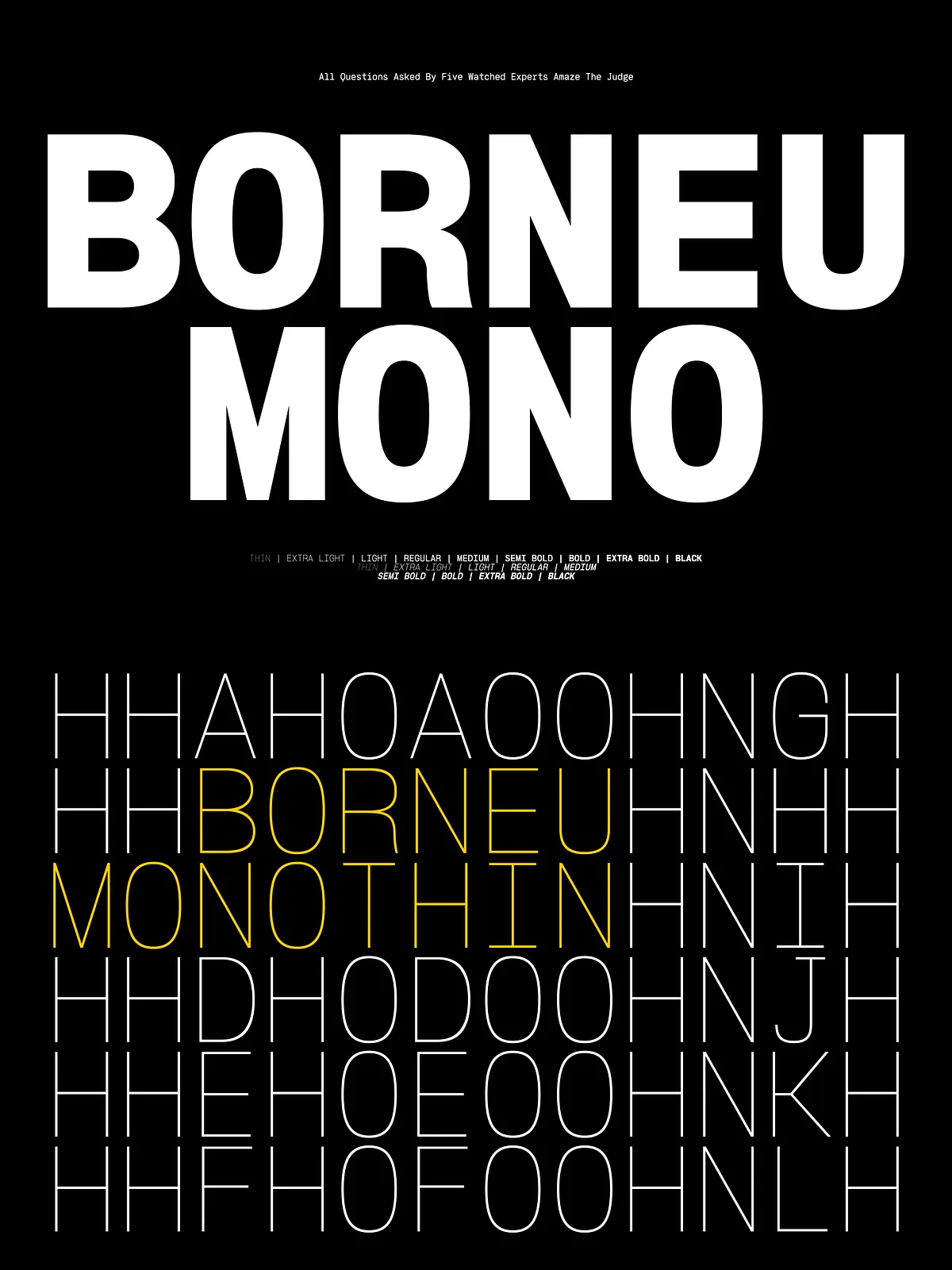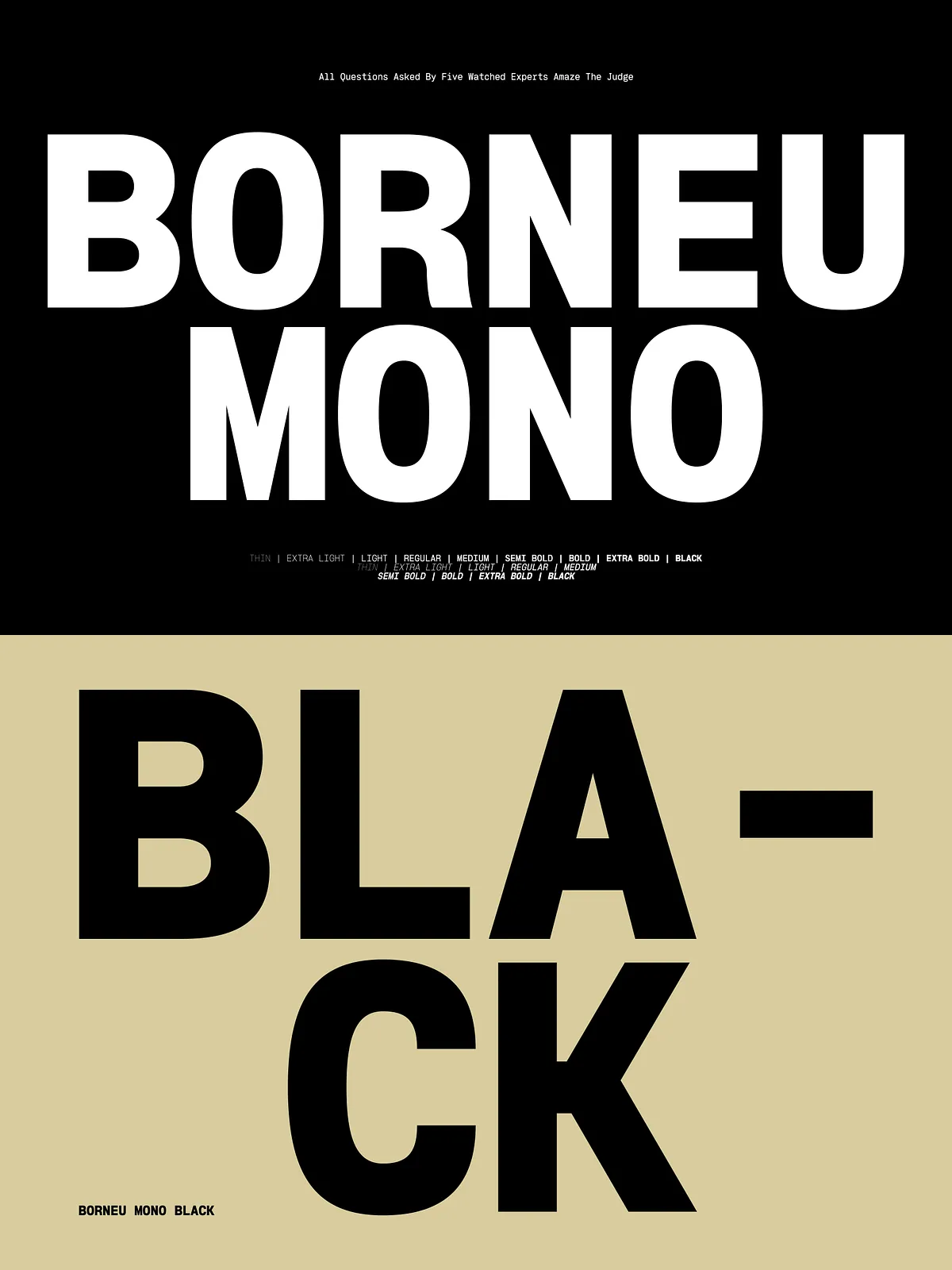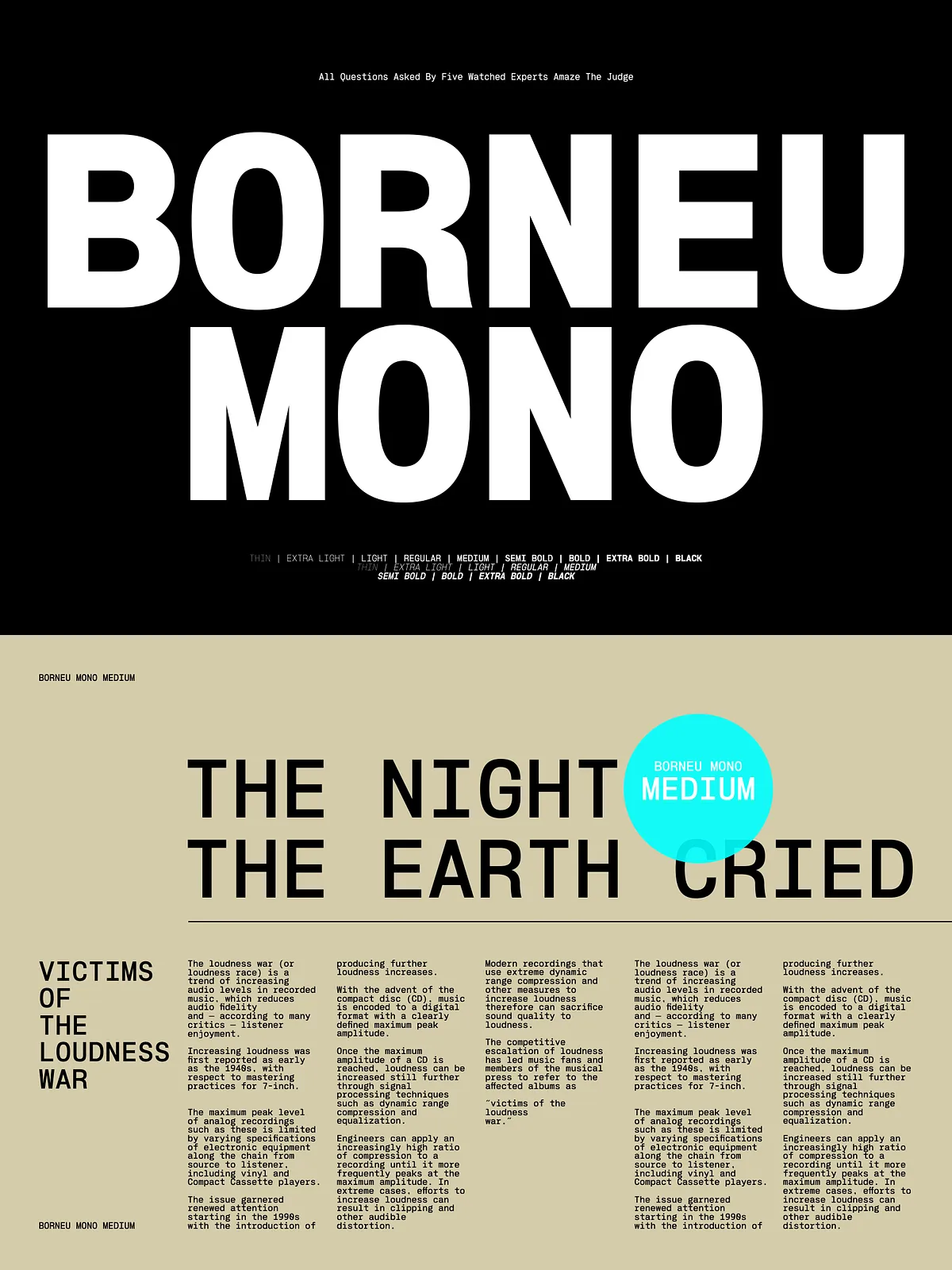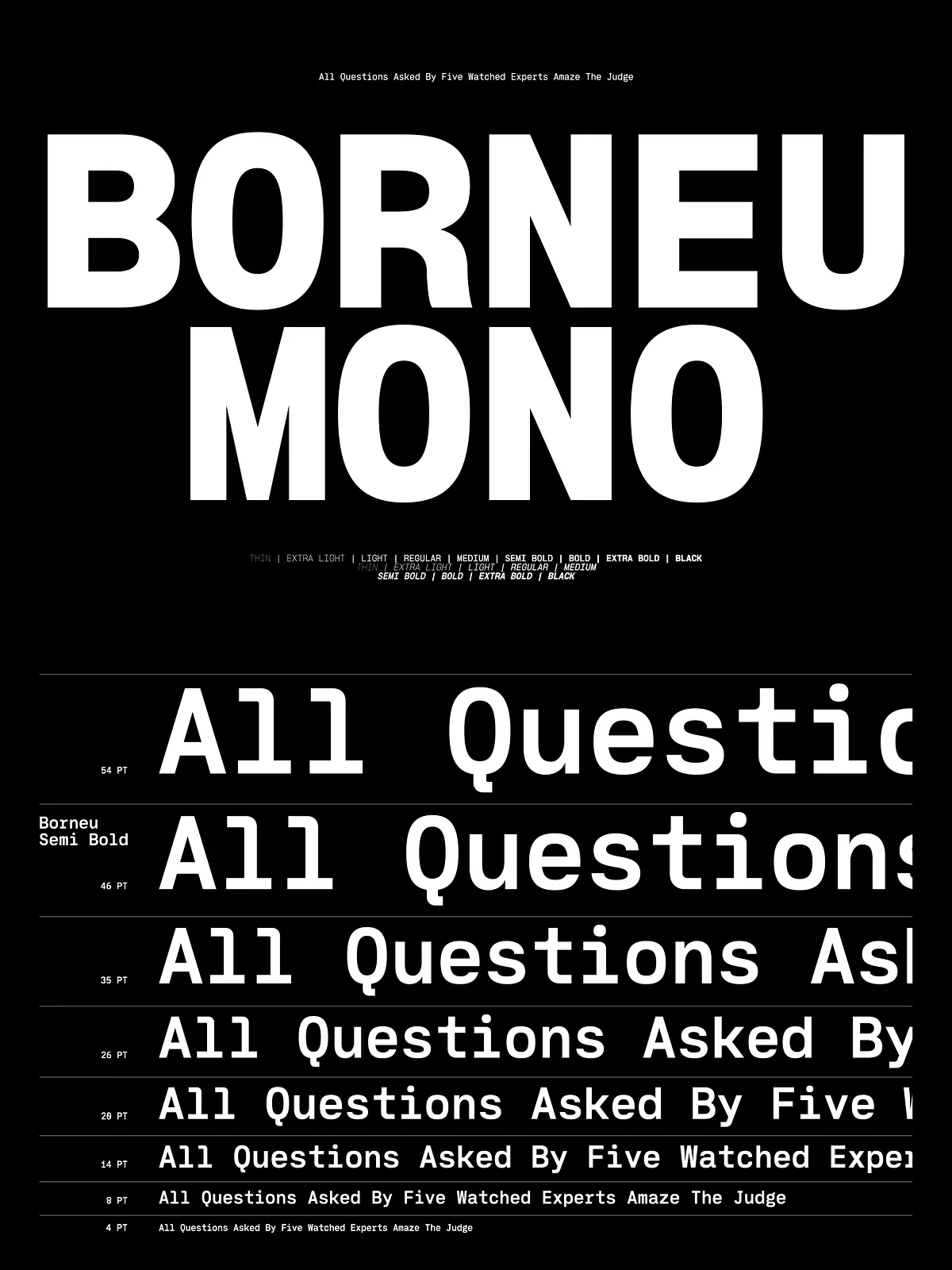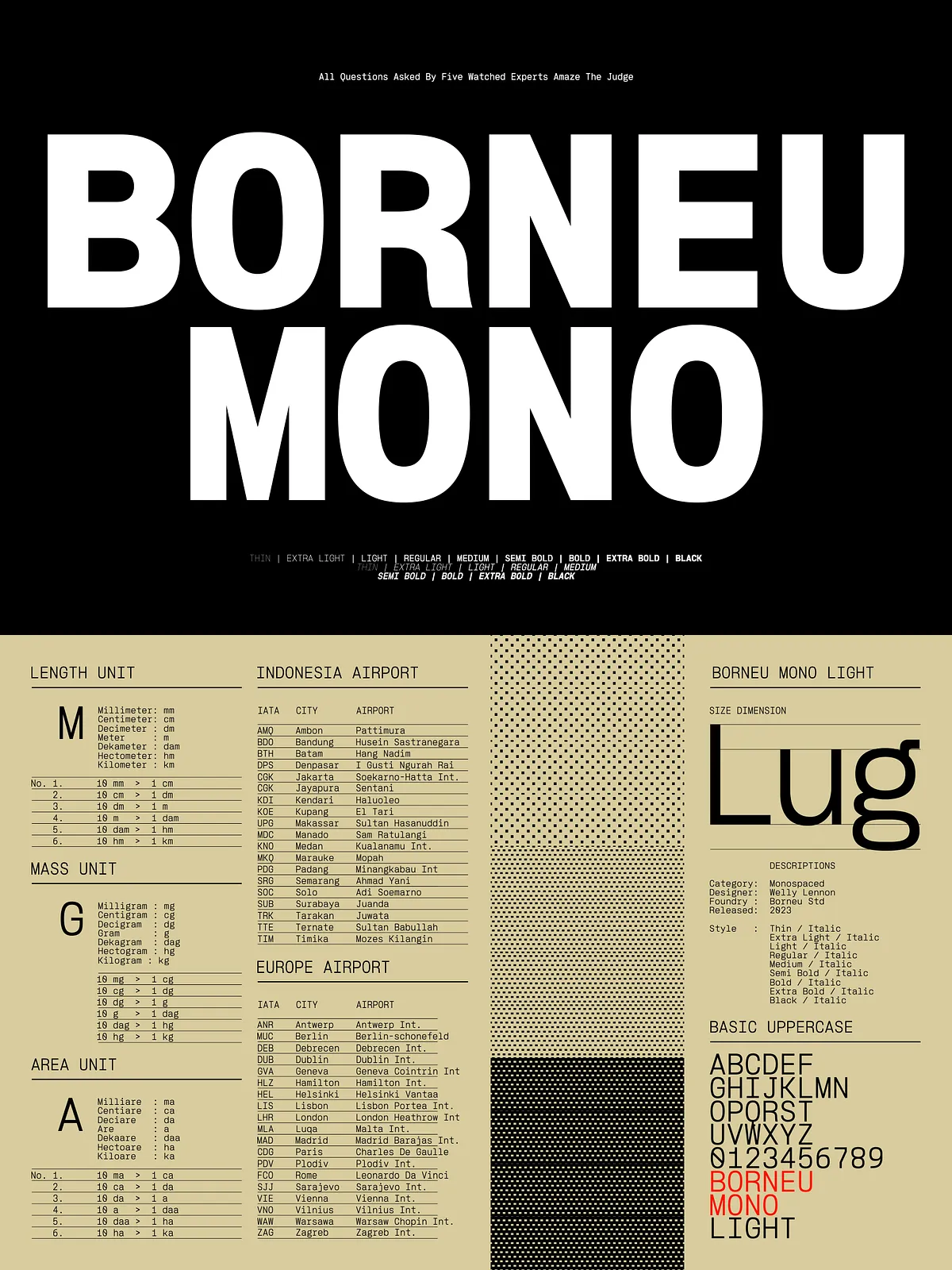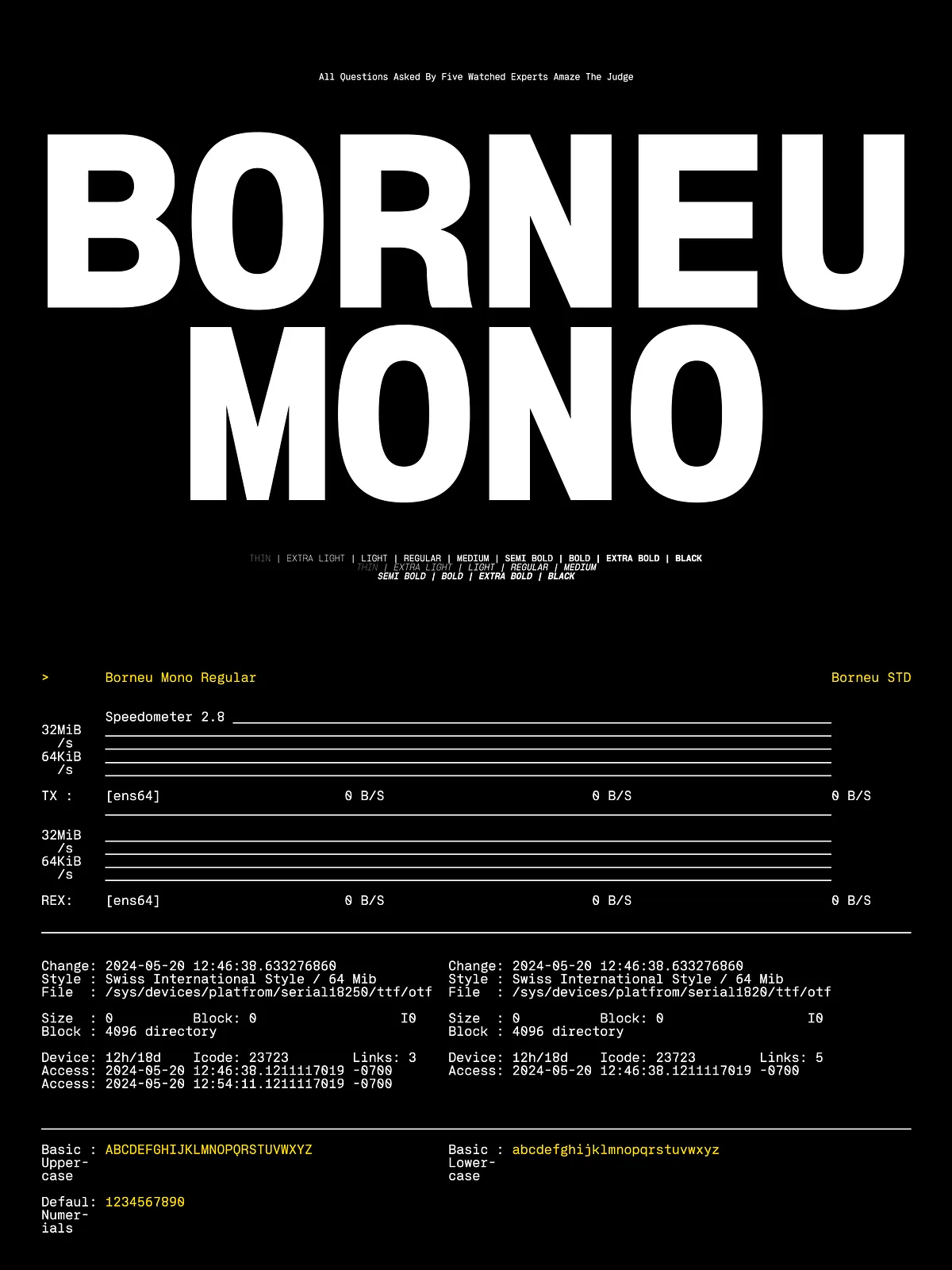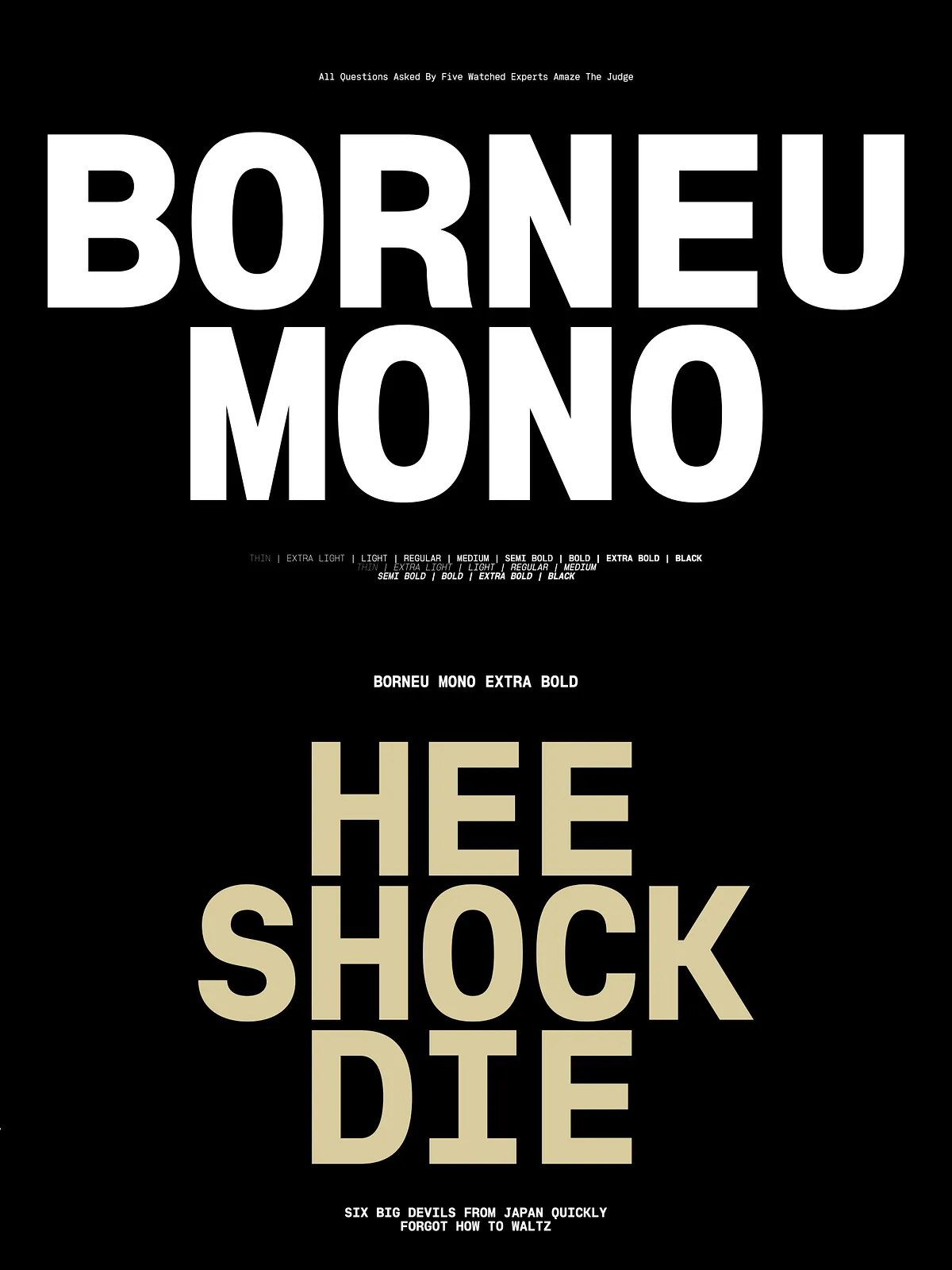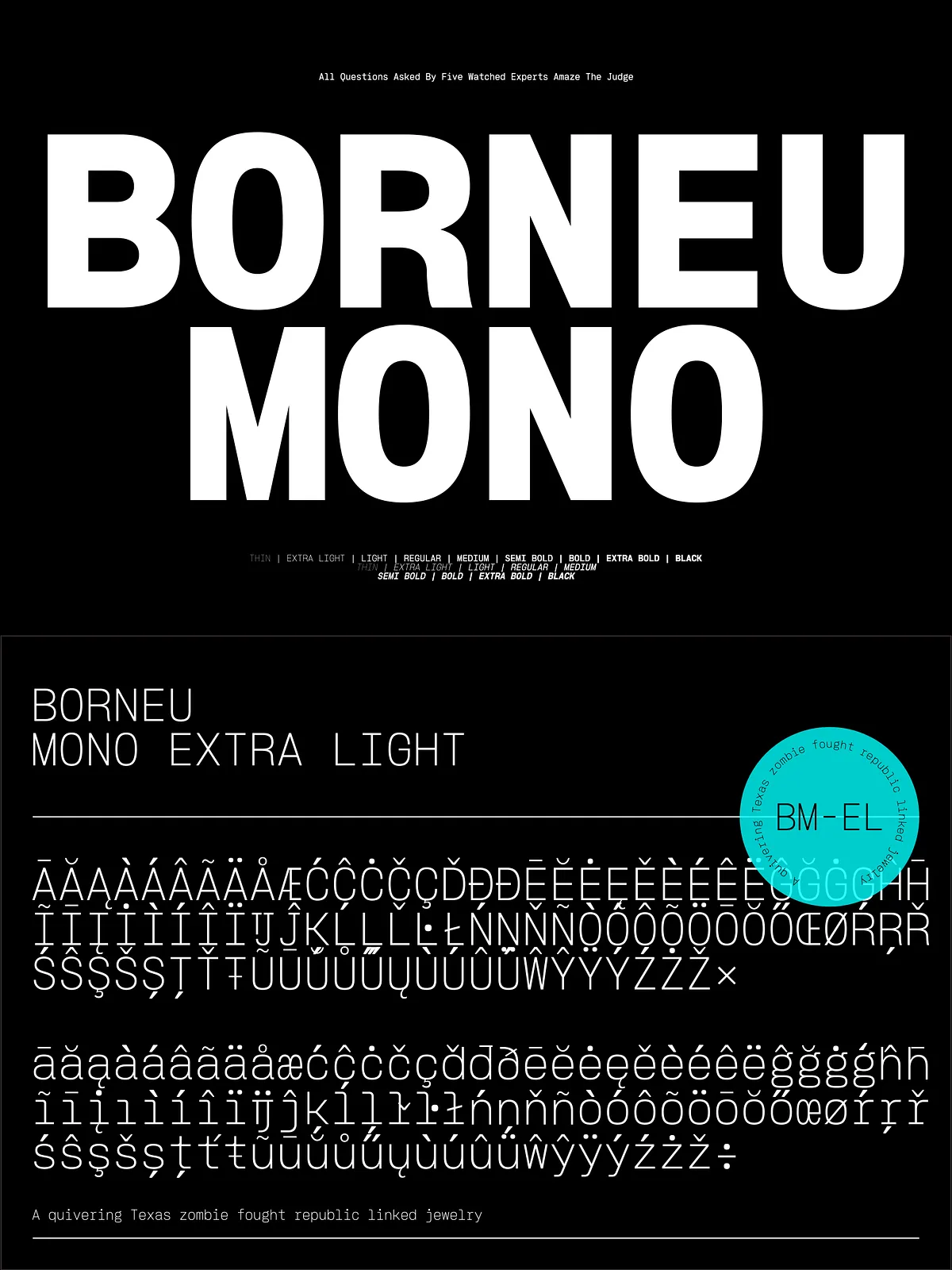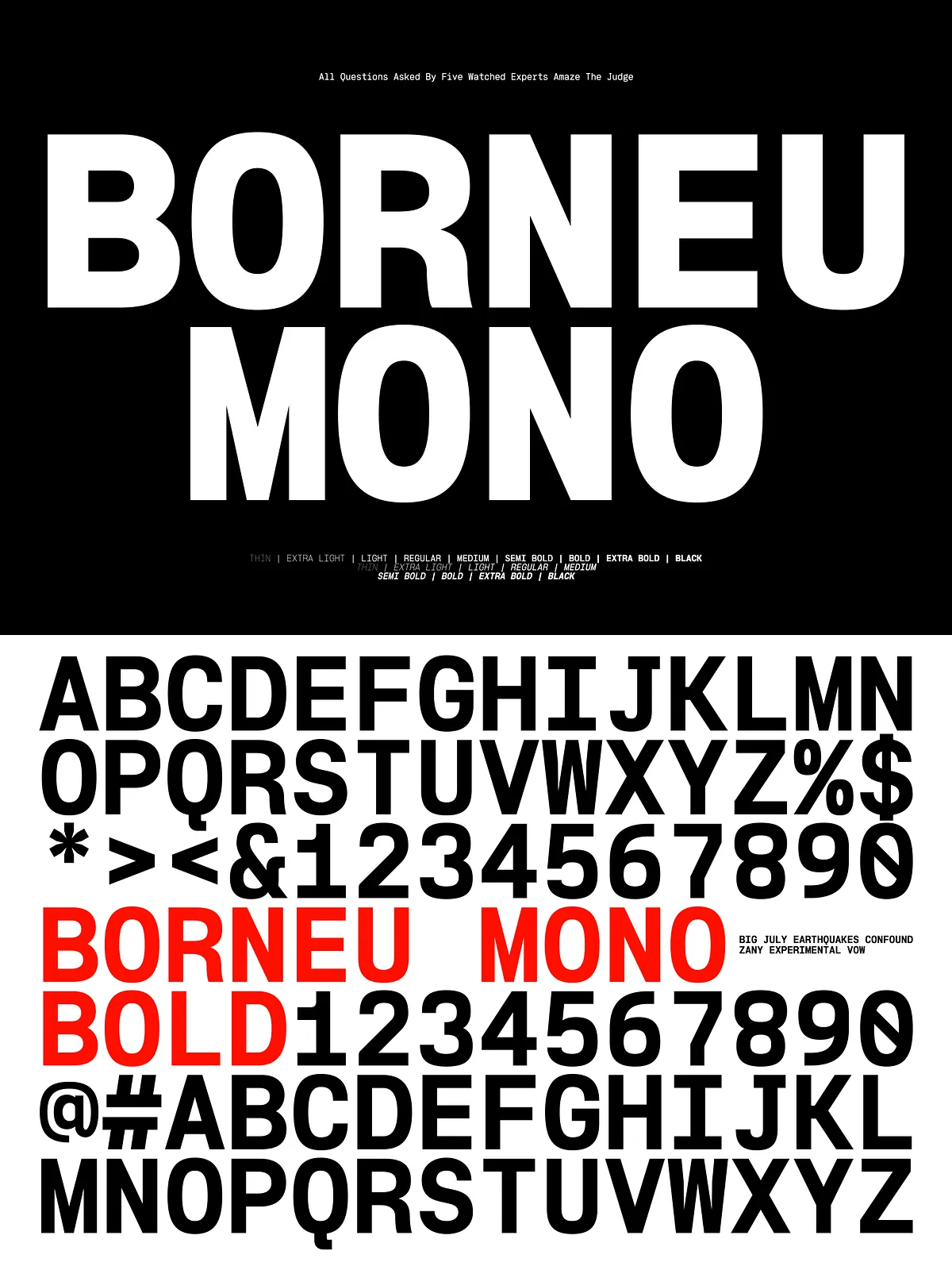
Borneu Mono Regular
Borneu Mono is a purpose-driven monospaced typeface created to meet the practical and aesthetic needs of graphic designers. It balances mechanical rhythm with humanist proportions to deliver a type system that reads well at both large display sizes and compact body text. Whether you are composing headings, coding interfaces, designing labels, or building editorial layouts, Borneu Mono supplies the clarity, consistency, and personality required for professional results.
Design Intent
Borneu Mono focuses on predictability and legibility. Each glyph aligns to a uniform character width—this preserves consistent vertical rhythm and makes text blocks and columns easier to measure and align. At the same time, carefully tuned counters, stroke endings, and spacing ensure the face retains warmth and readability, avoiding the cold rigidity that can afflict lesser monospaced designs.
Key Characteristics
• Monospaced discipline: Equal character widths create dependable grids for tables, code samples, captions, and multi-column layouts.
• Dual-purpose readability: Optimized shapes render crisply at headline sizes while maintaining comfortable reading at body sizes.
• Neutral but expressive: A restrained voice that supports brand messaging without overpowering other visual elements.
• Clear punctuation and numerals: Distinct figures and punctuation ensure accuracy in technical, editorial, and interface contexts.
• Consistent vertical rhythm: Predictable line metrics help designers control leading and alignment precisely.
Practical Features
Borneu Mono ships with the essentials designers expect. It includes full uppercase and lowercase alphabets, numerals, punctuation, and basic symbol sets that cover most western-language projects. The typeface behaves predictably across platforms and requires no complex setup—install and begin laying out text immediately.
Ideal Use Cases
Borneu Mono excels across a broad range of design applications because it marries technical precision with visual balance. Use it to:
• Anchor brand identities where a modern, technical, or editorial tone is needed.
• Render code samples, developer documentation, or UI mockups where monospaced alignment improves clarity.
• Compose packaging copy and product labels that require structured typographic grids.
• Set magazine columns, captions, and fact boxes that benefit from rhythmic line lengths.
• Design posters and headlines that call for a bold, geometric presence while maintaining legibility.
Performance & Production
The consistent character widths simplify layout tasks and speed up production. When used in digital interfaces, Borneu Mono maintains a steady visual rhythm across responsive breakpoints. For print, the even metrics reduce typographic surprises when reflowing copy between different page grids.
• Use tracking and leading adjustments to tune the visual color for specific sizes—slightly tighter tracking often benefits display uses, while relaxed leading improves body text legibility.
• Combine Borneu Mono with a neutral sans or serif for contrast in UI and editorial systems—use the mono face for structured data and the companion face for flowing copy.